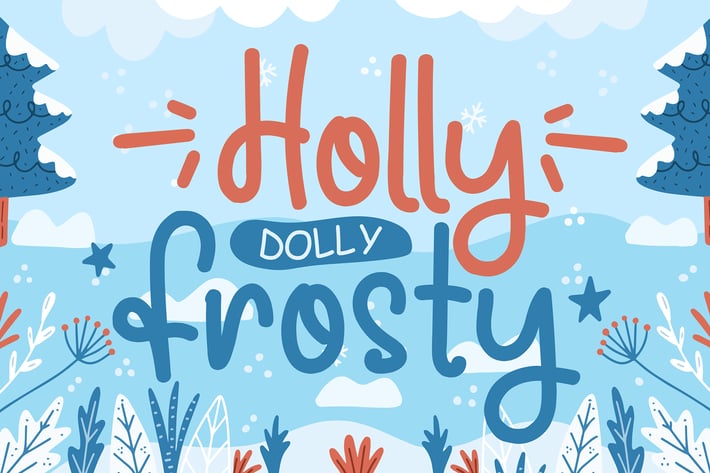
Holly Frosty - Joyful Holiday Font
Hello, this is Holly Frosty Font.
Playful Monoline Display Font made with a very natural handwritten touch. Making it very suitable for various needs of design, branding, packaging, especially with the theme of winter and holiday.